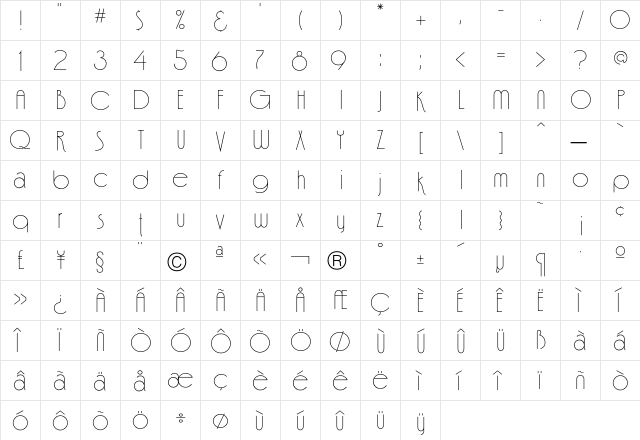
Fina Font
Design Context for Fina Typeface
Fina offers clean, dependable letterforms without strong stylistic allegiance, making it a practical choice for designers who need flexibility.
Pro Tip: Use Fina in both headline and body roles to test its range before committing to a single application.